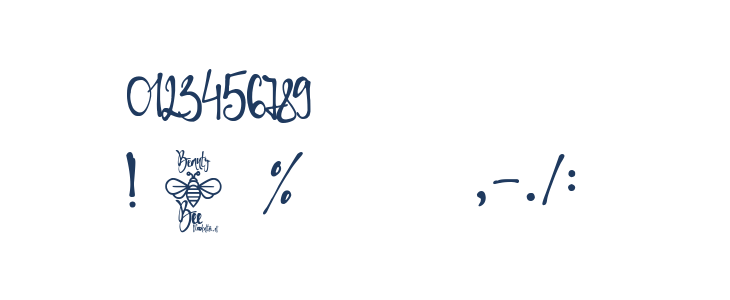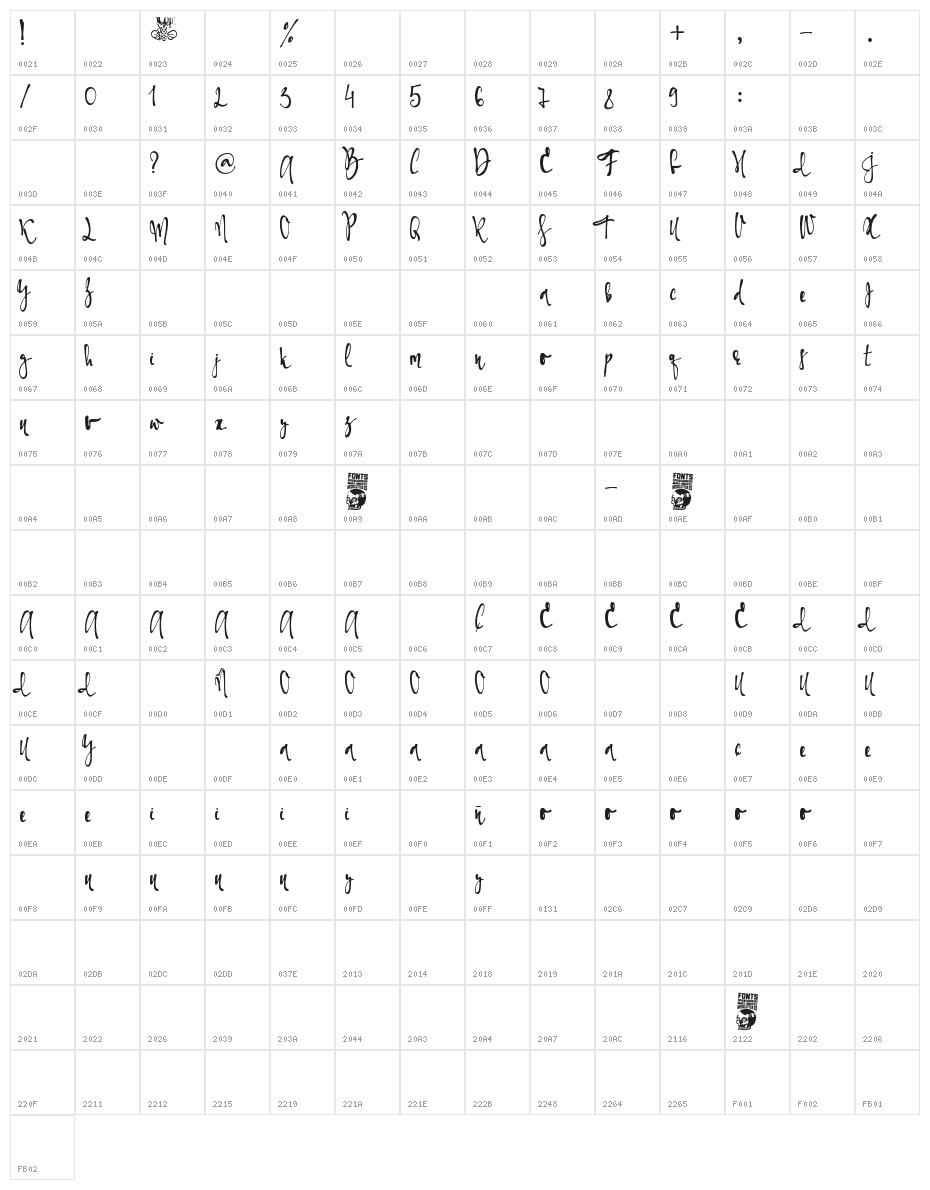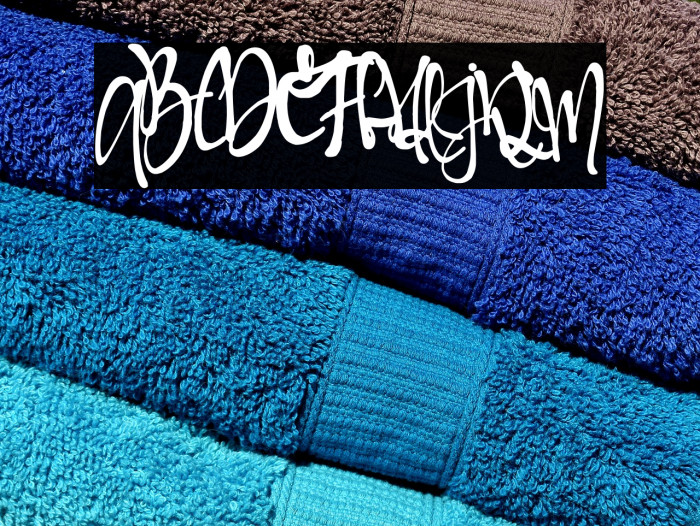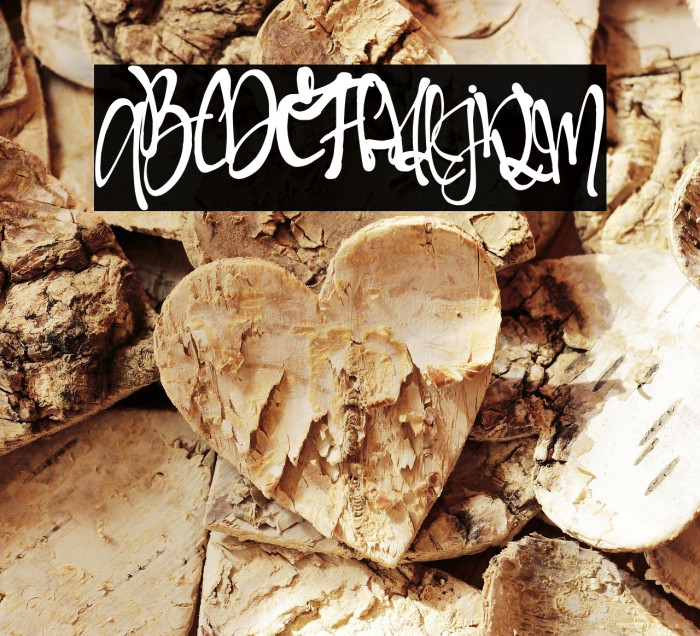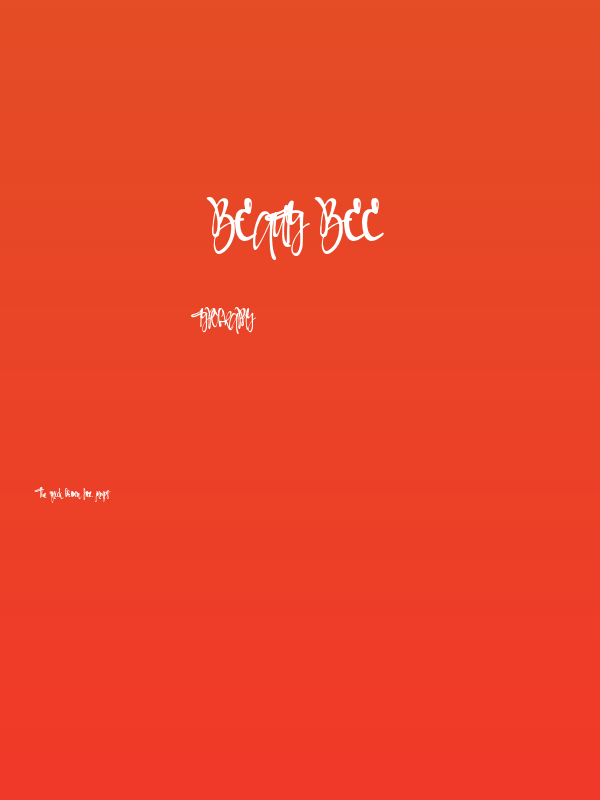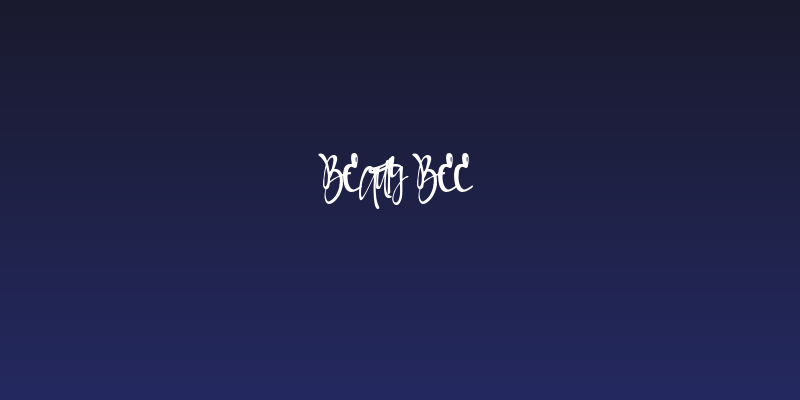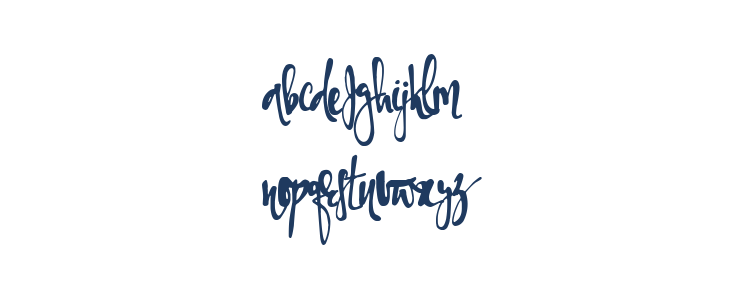
Beauty Bee Font
Beauty Bee Description
This font features a highly decorative and artistic script style, characterized by its fluid, cursive strokes and intricate loops. The uppercase letters are bold and expressive, with a dynamic flow that suggests movement and elegance. The lowercase letters maintain a consistent style, offering a harmonious blend of curves and lines that enhance readability despite the ornate design. Numbers and special characters follow the same artistic theme, adding a cohesive look across all elements. This font's unique style makes it ideal for creative projects that require a touch of sophistication and flair.